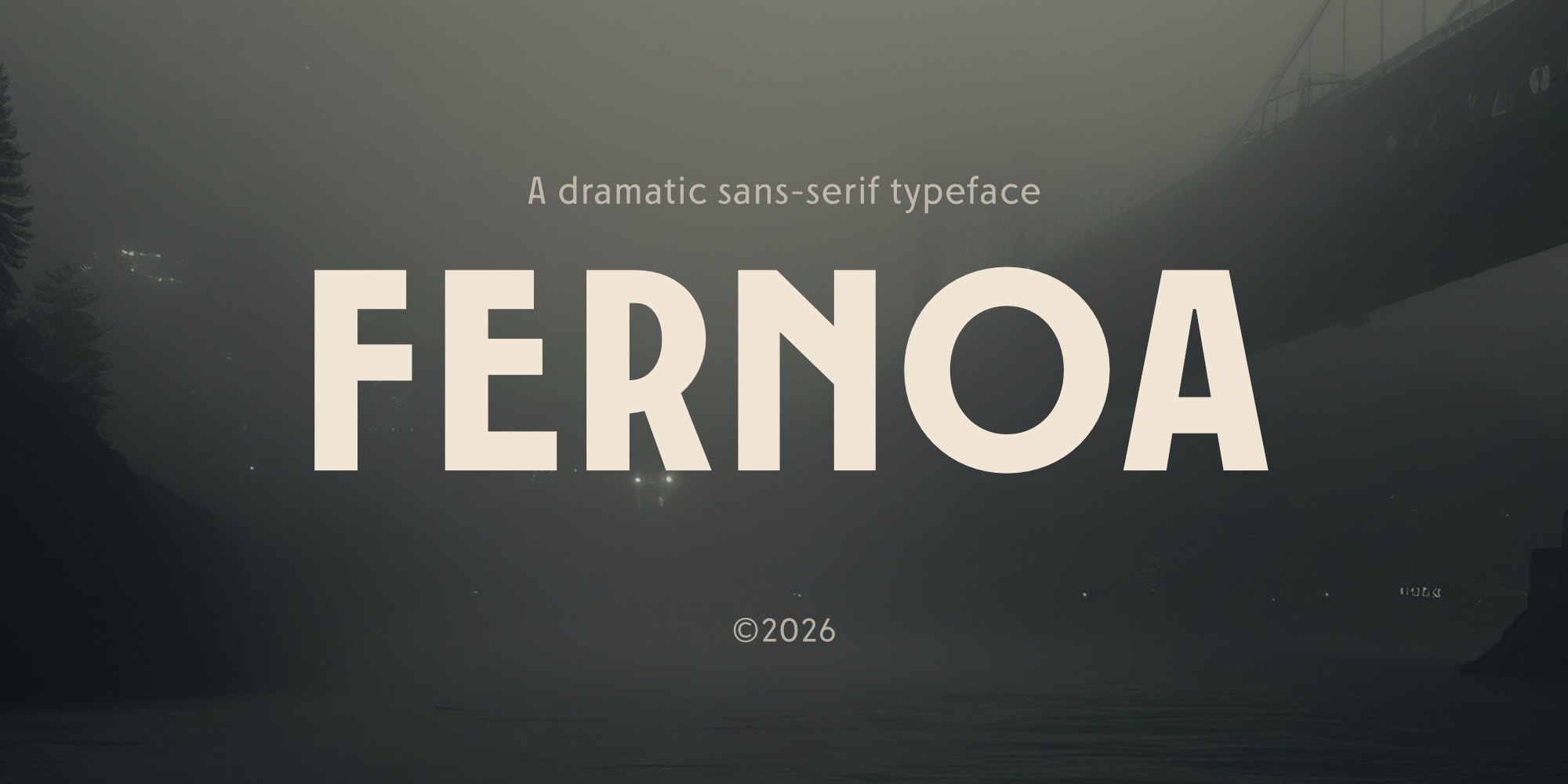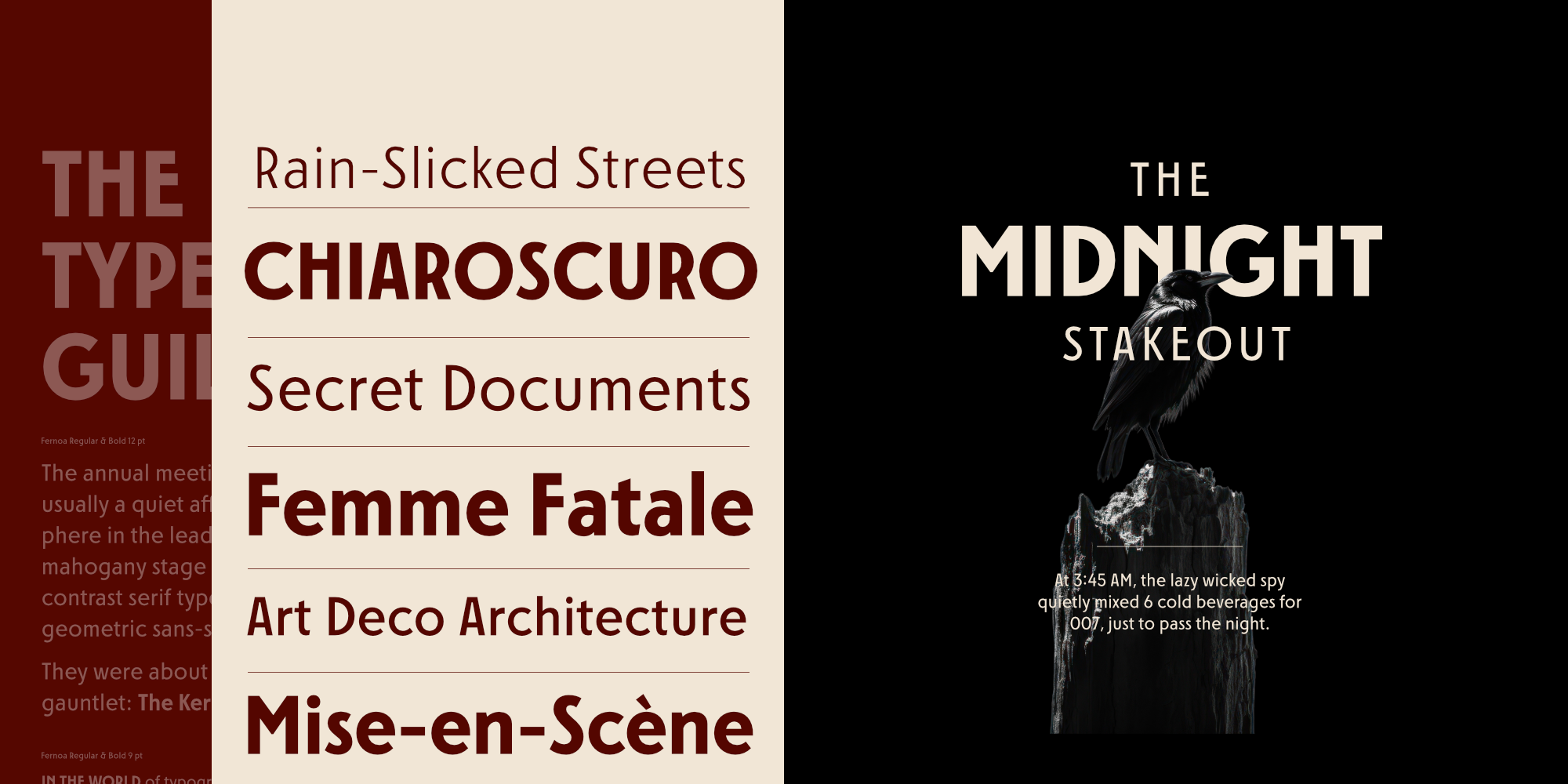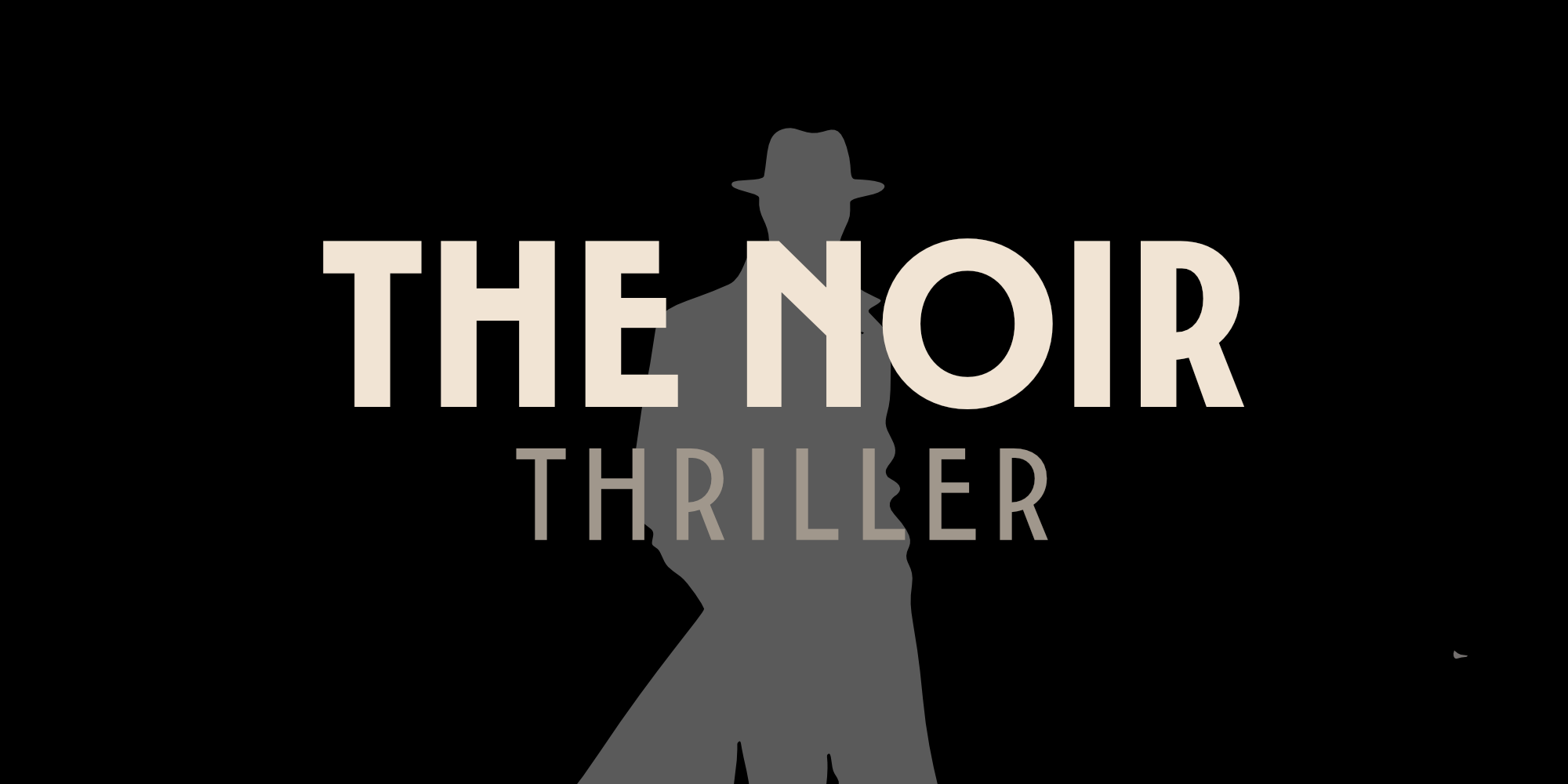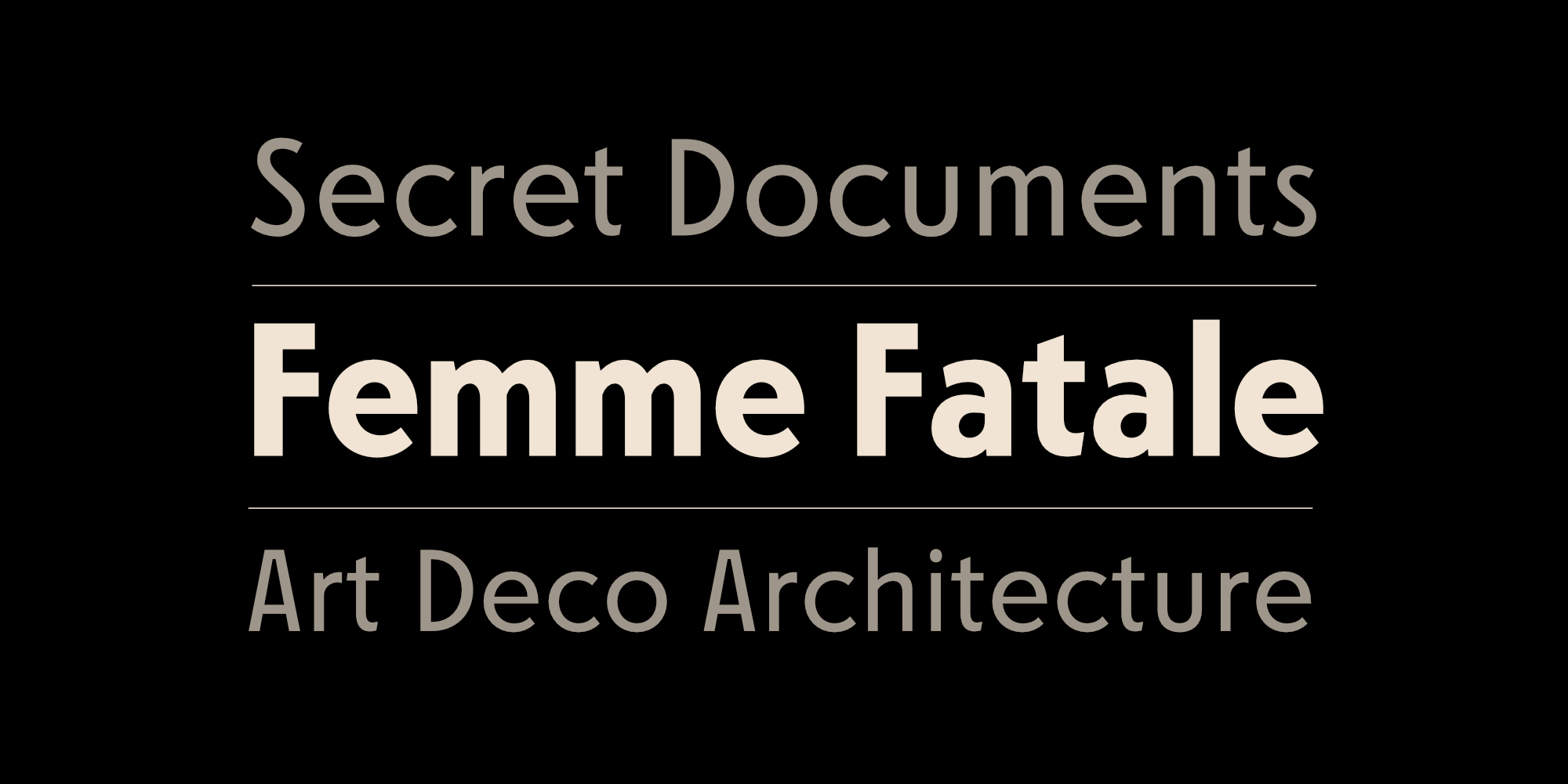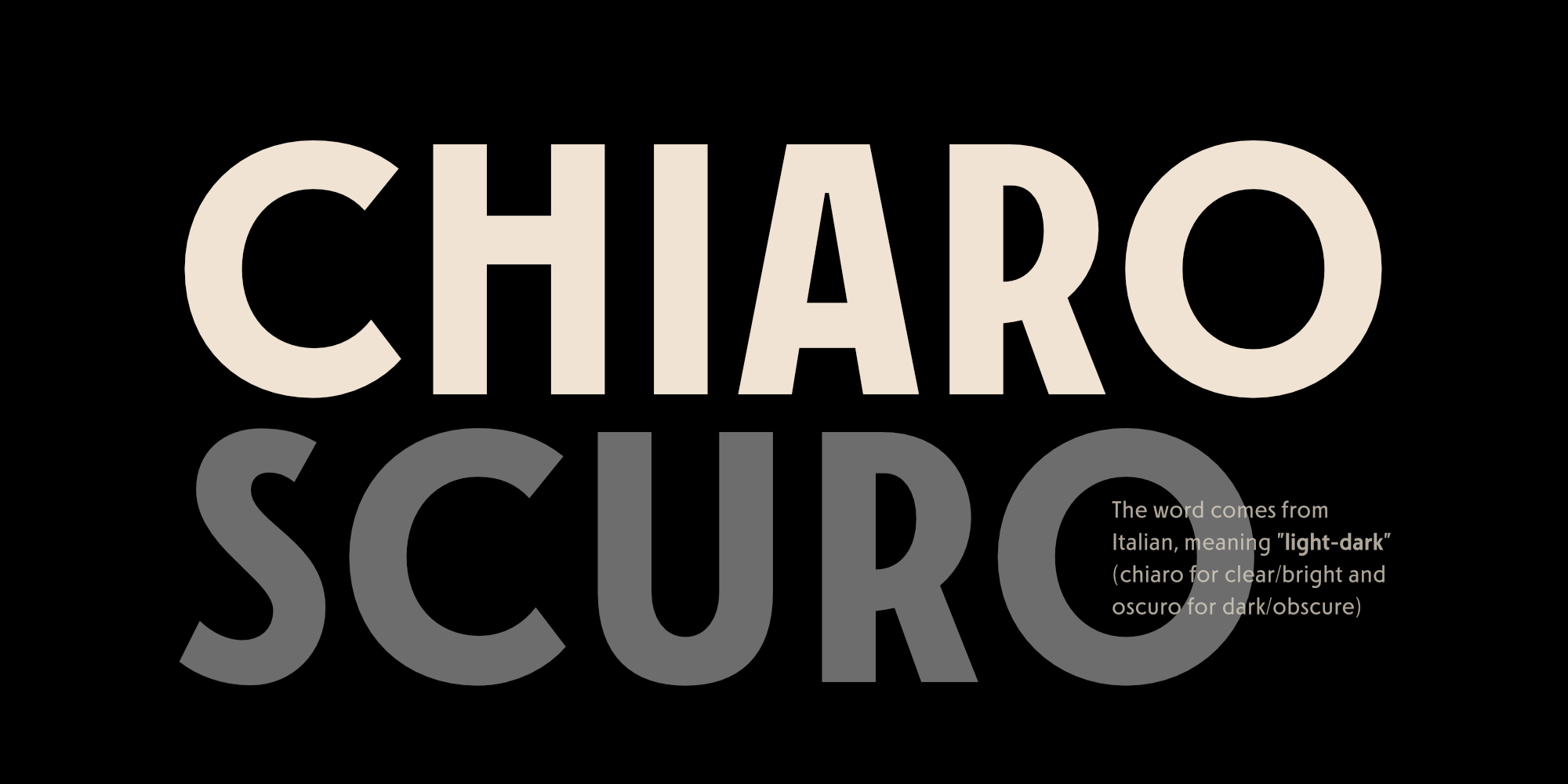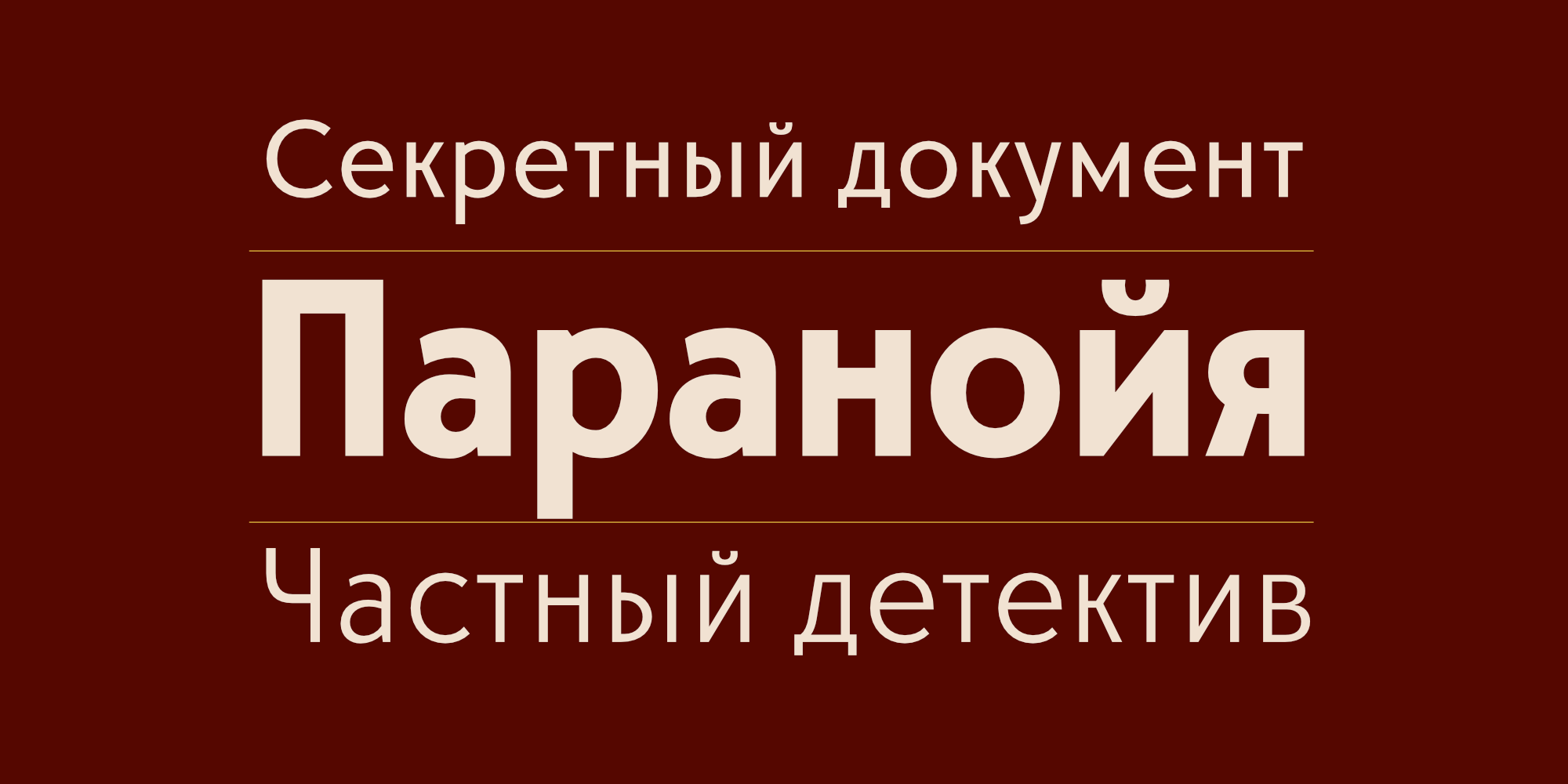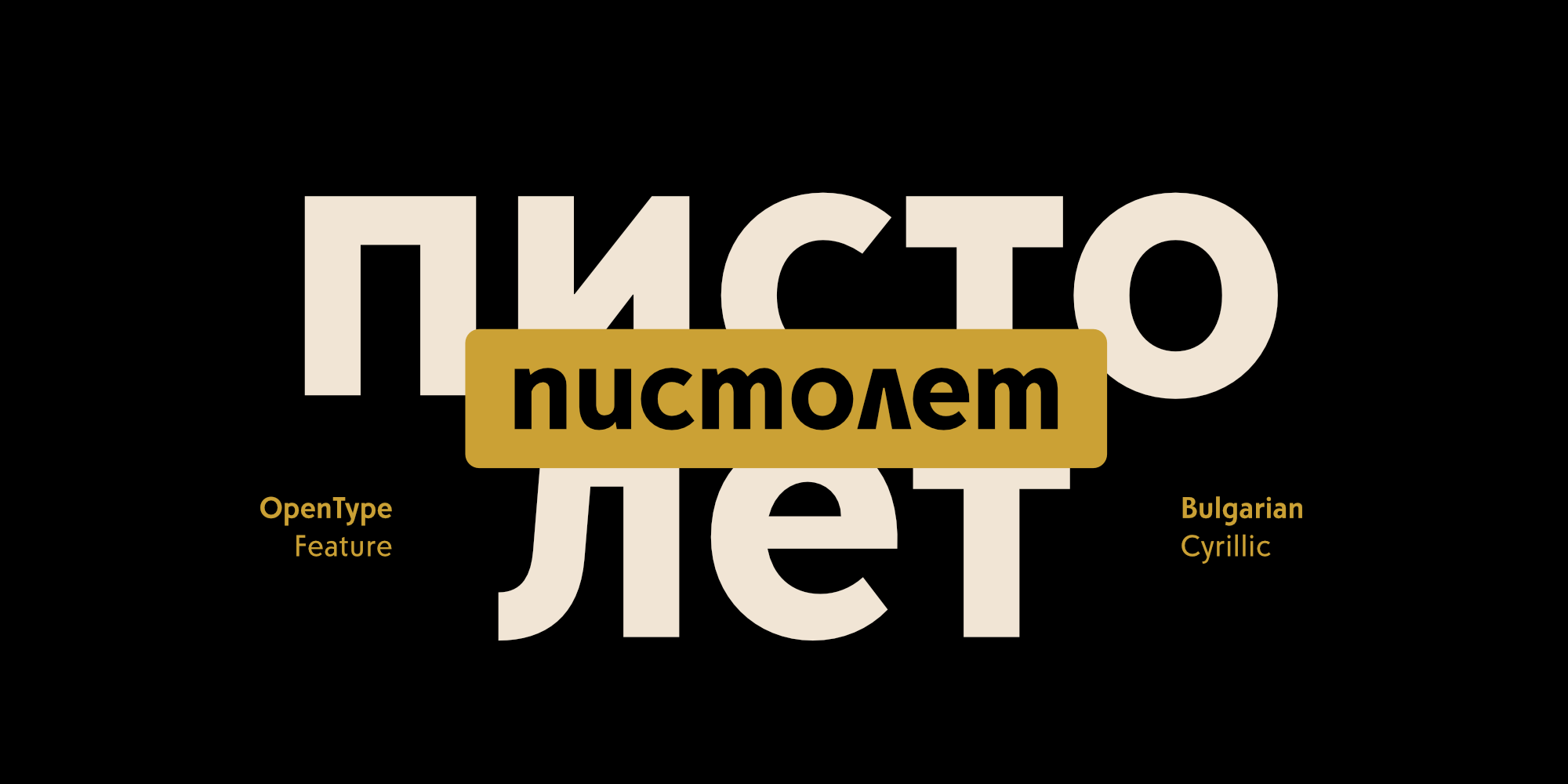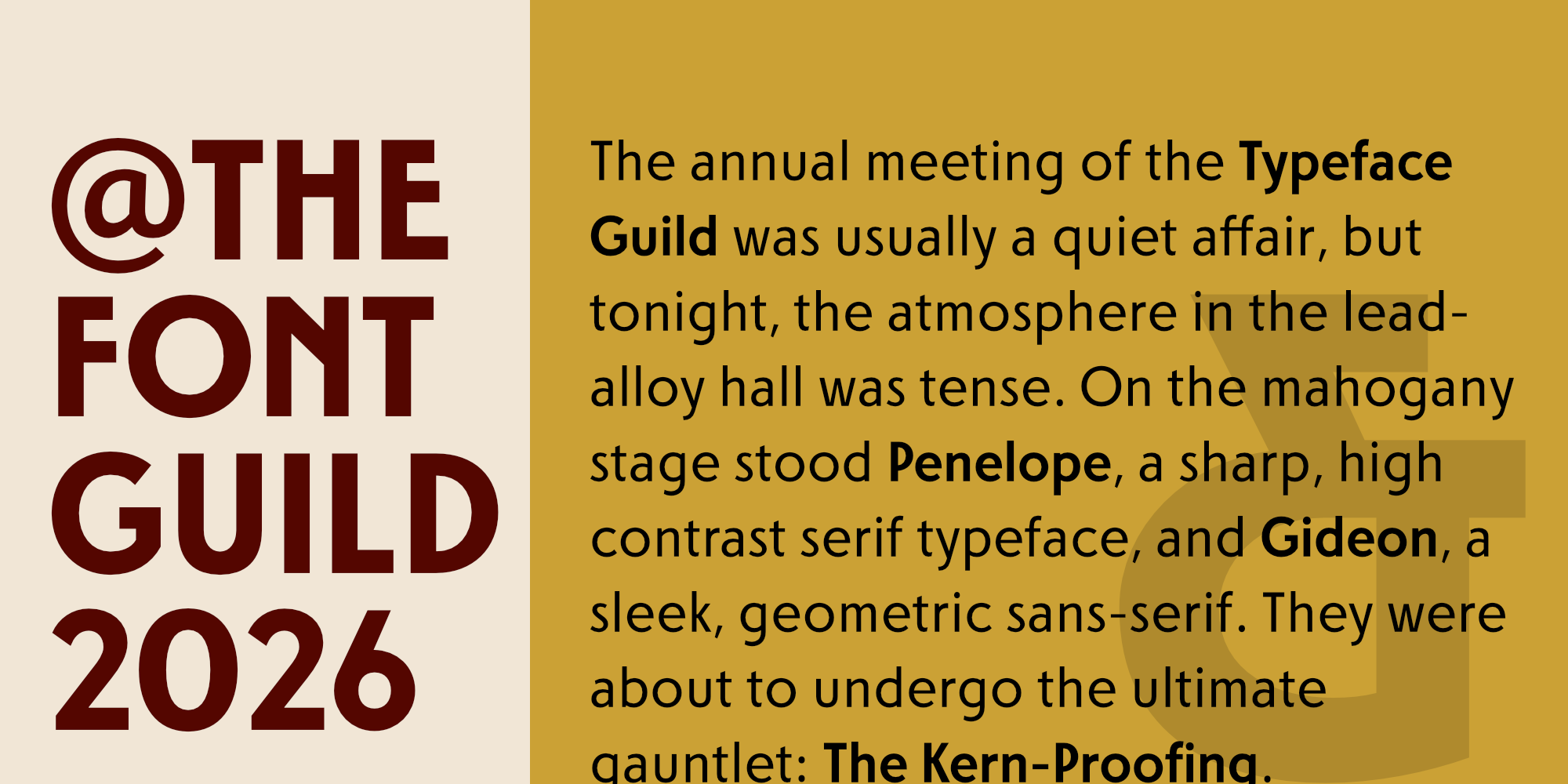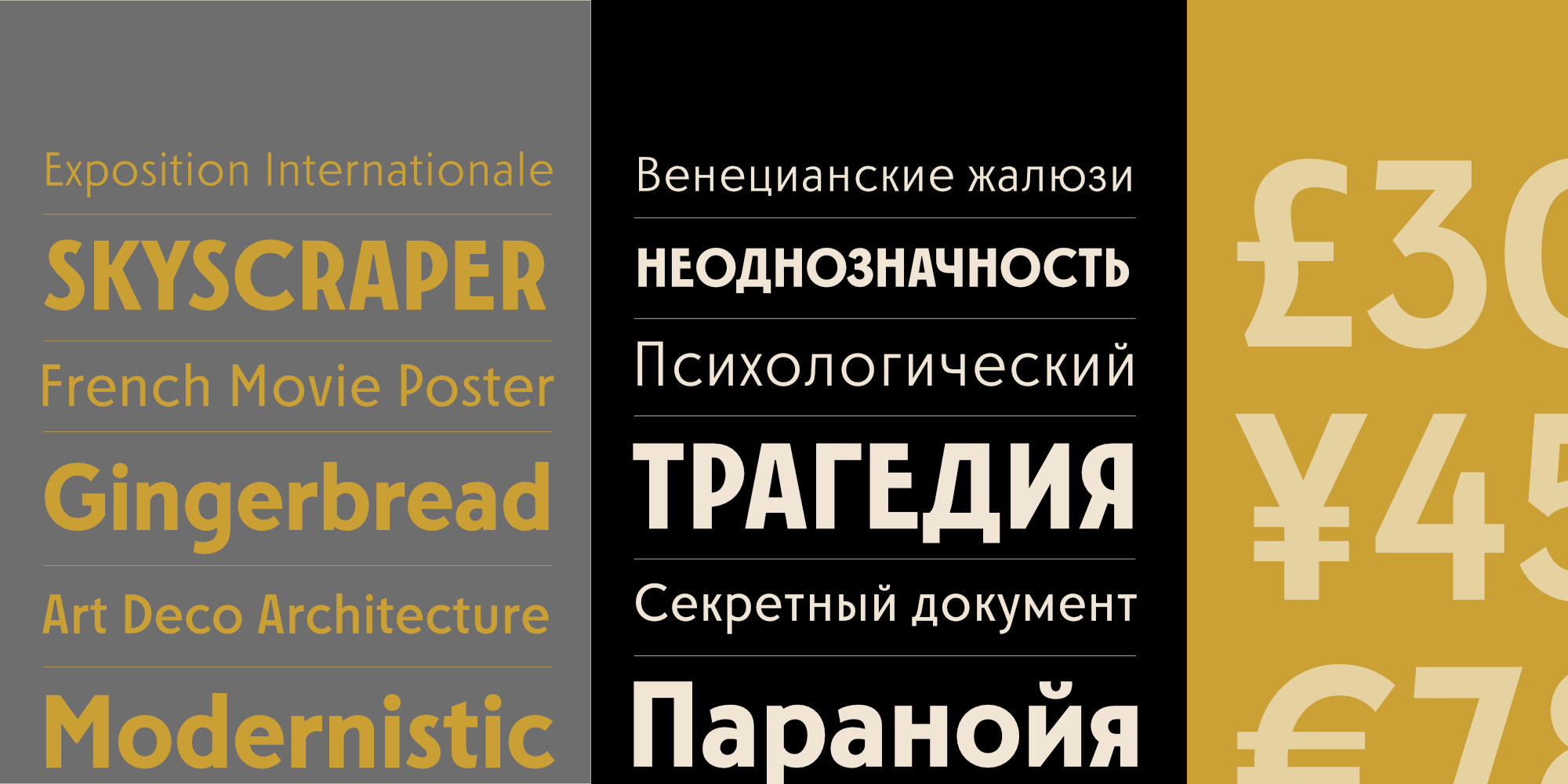
Fernoa is a commanding sans-serif typeface designed for impact, intrigue, and dramatic presence. Inspired by classic noir cinema, vintage espionage aesthetic, and mid-century Art Deco architecture, Fernoa pairs sharp, geometric precision with powerful contrast across its weight family.
Introducing Fernoa — A Dramatic Sans-Serif for Cinematic Storytelling
Evoke mood, mystery, and timeless sophistication with Fernoa, a high-impact sans-serif typeface designed to make bold visual statements. Drawing inspiration from classic film noir, mid-century Art Deco architecture, and vintage espionage thrillers, Fernoa strikes a perfect balance between geometric structure and dramatic personality.
From razor-sharp terminal cuts to commanding display weights, Fernoa delivers an unmistakably powerful aesthetic. Whether set in extra-bold headlines or sleek, elegant light weights, it maintains exceptional clarity and tension. Complete with full Cyrillic support, Fernoa offers global versatility for projects that demand presence and depth.